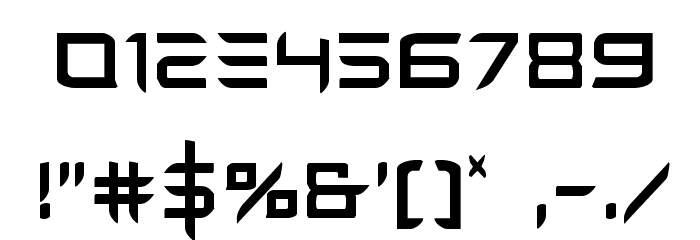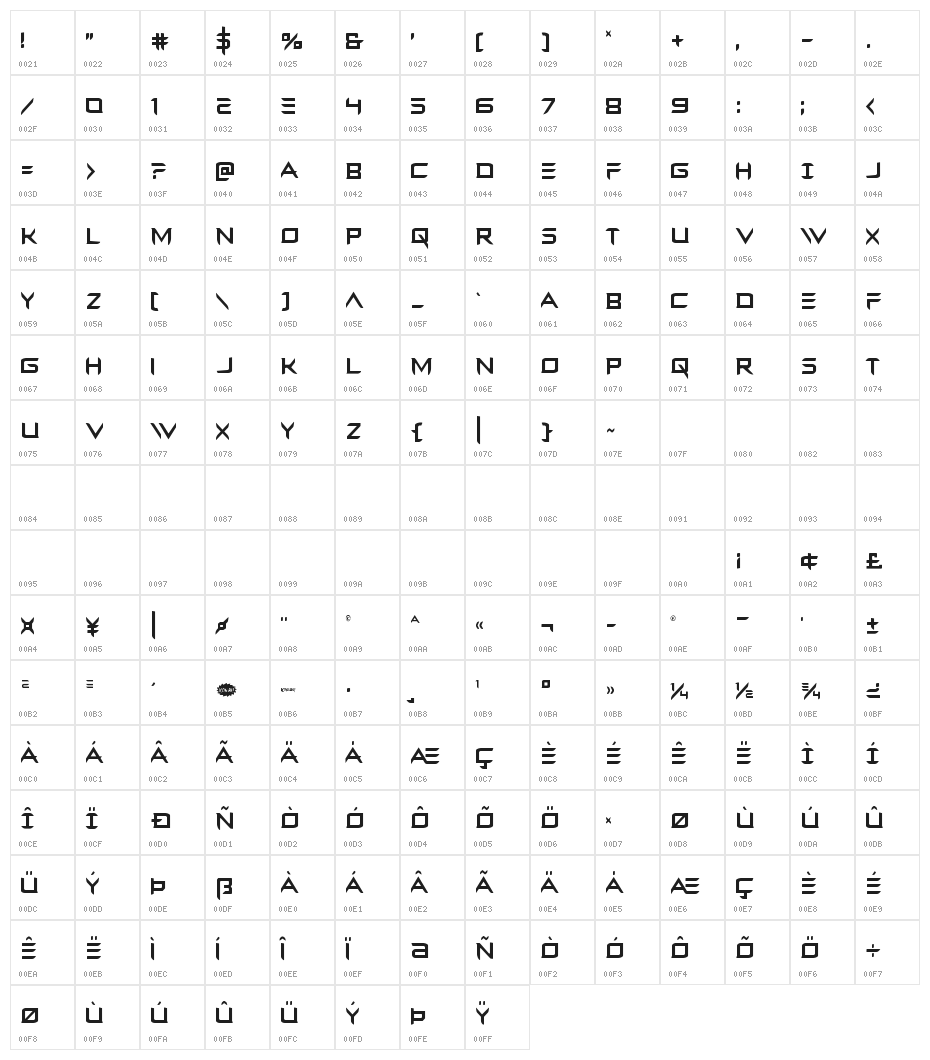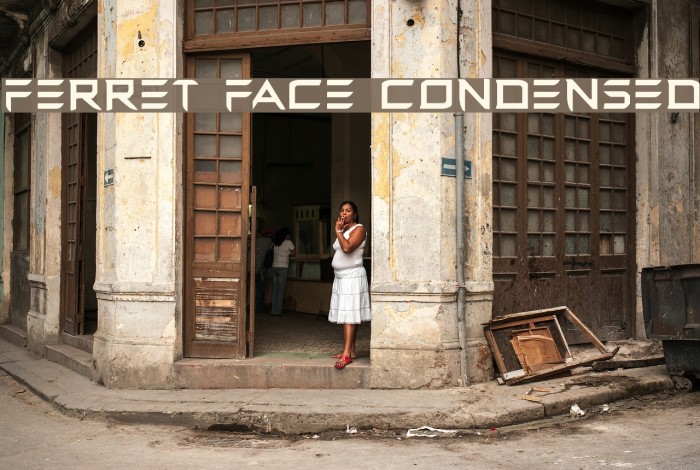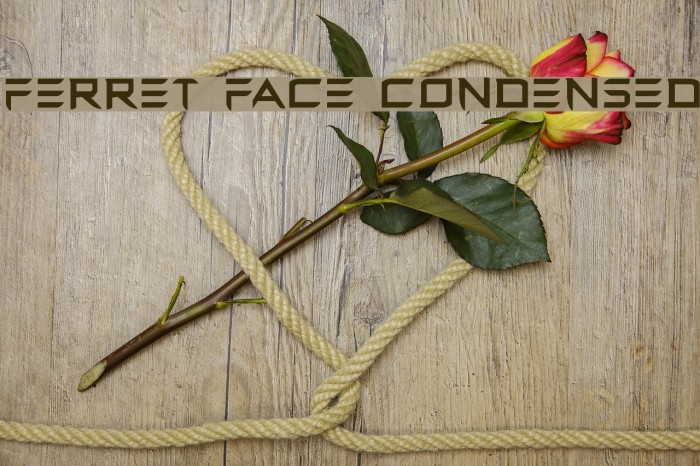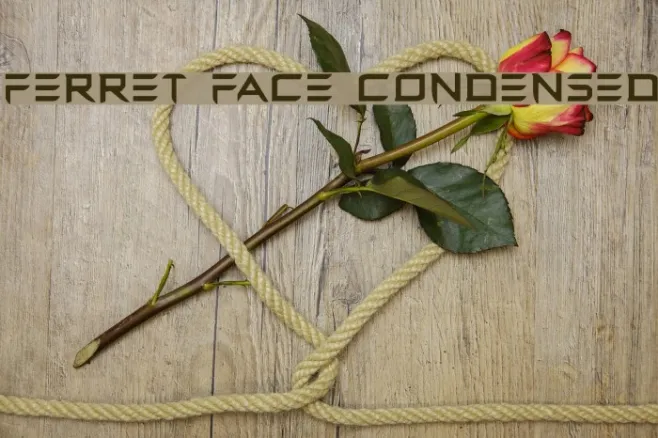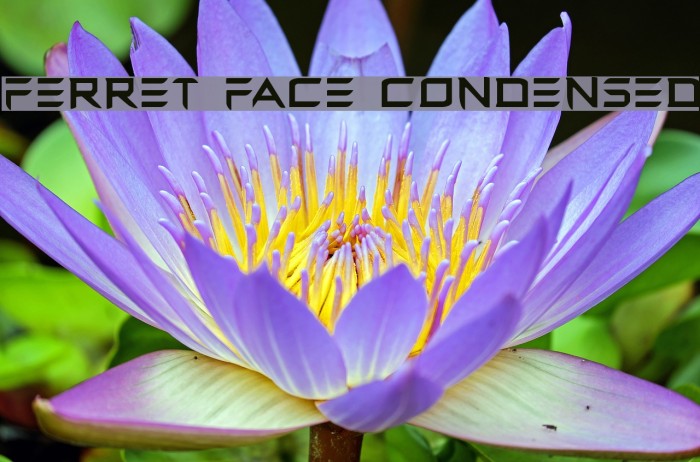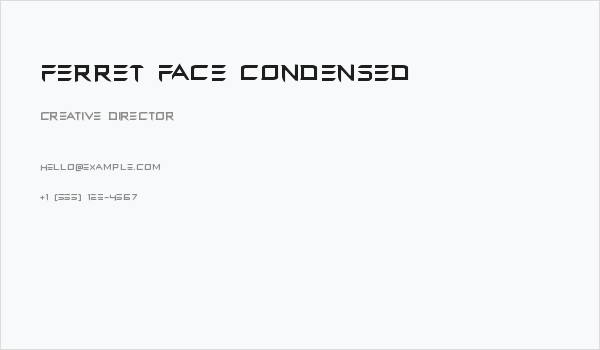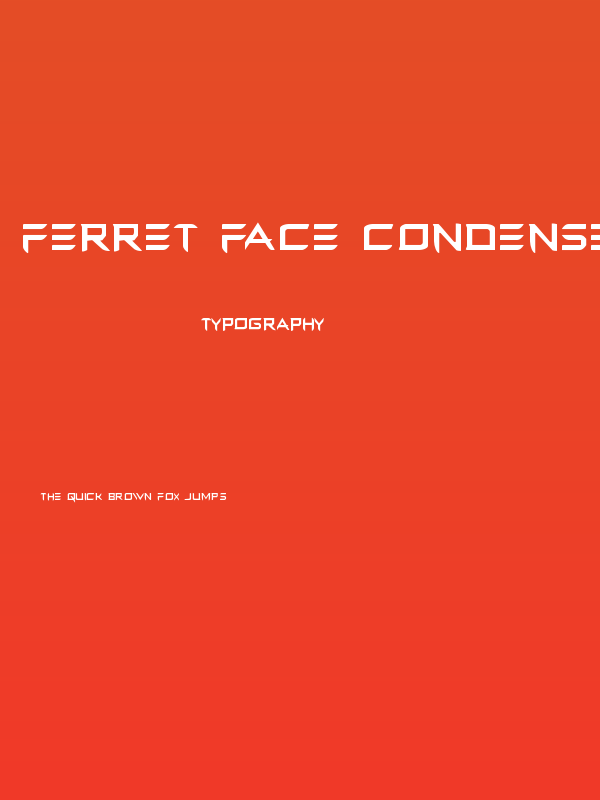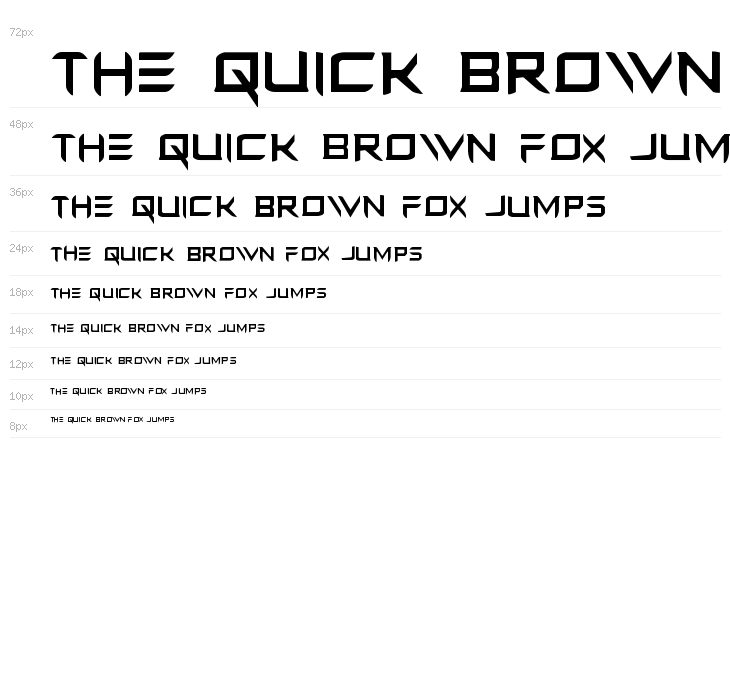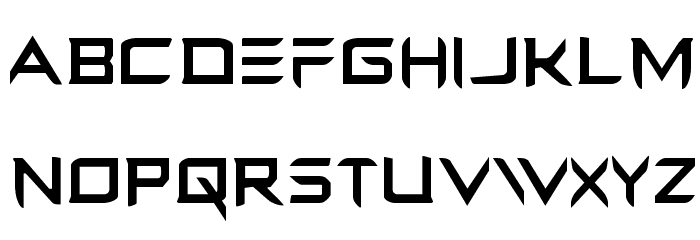
Ferret Face Condensed Font
Ferret Face Condensed Description
This font features a bold and futuristic design with sharp, angular lines and a condensed structure. The characters are uniquely stylized, with geometric elements that give it a modern and edgy appearance. The uppercase and lowercase letters maintain a consistent height, contributing to its uniform look. The numerals and special characters follow the same design principles, ensuring a cohesive visual style across all glyphs. This font's distinctiveness makes it ideal for projects that require a strong and impactful visual statement.
| Proposed Projects | Ideal for sci-fi themed designs, tech branding, video game titles, and modern posters. |